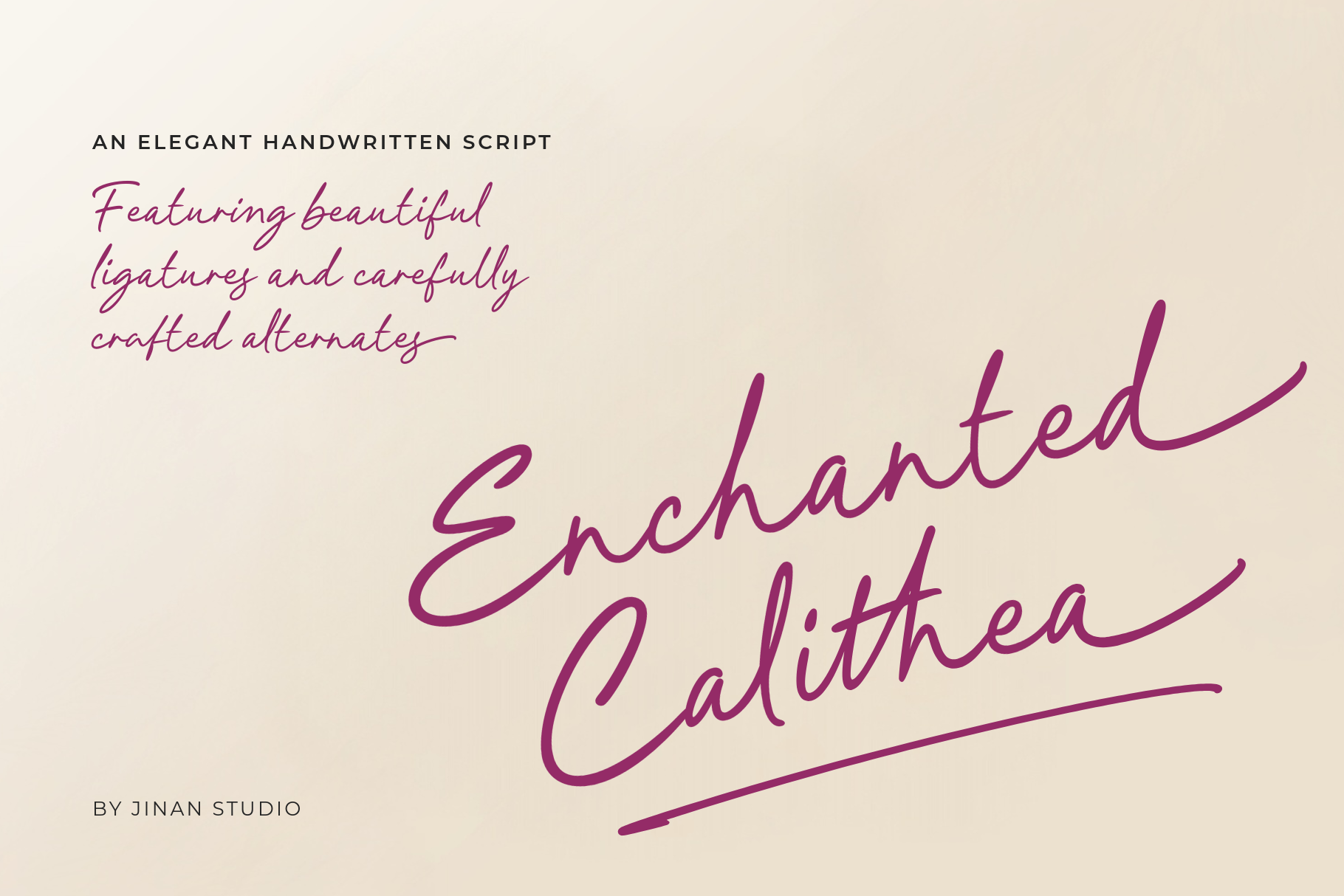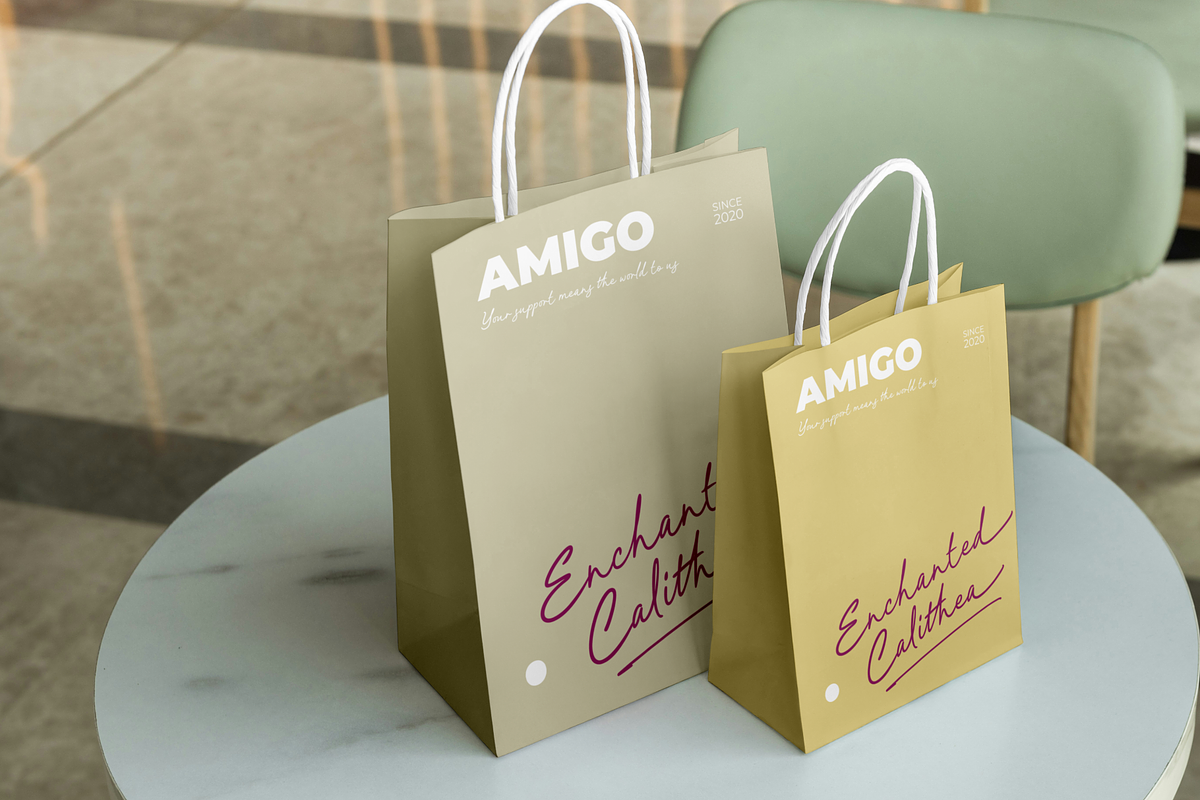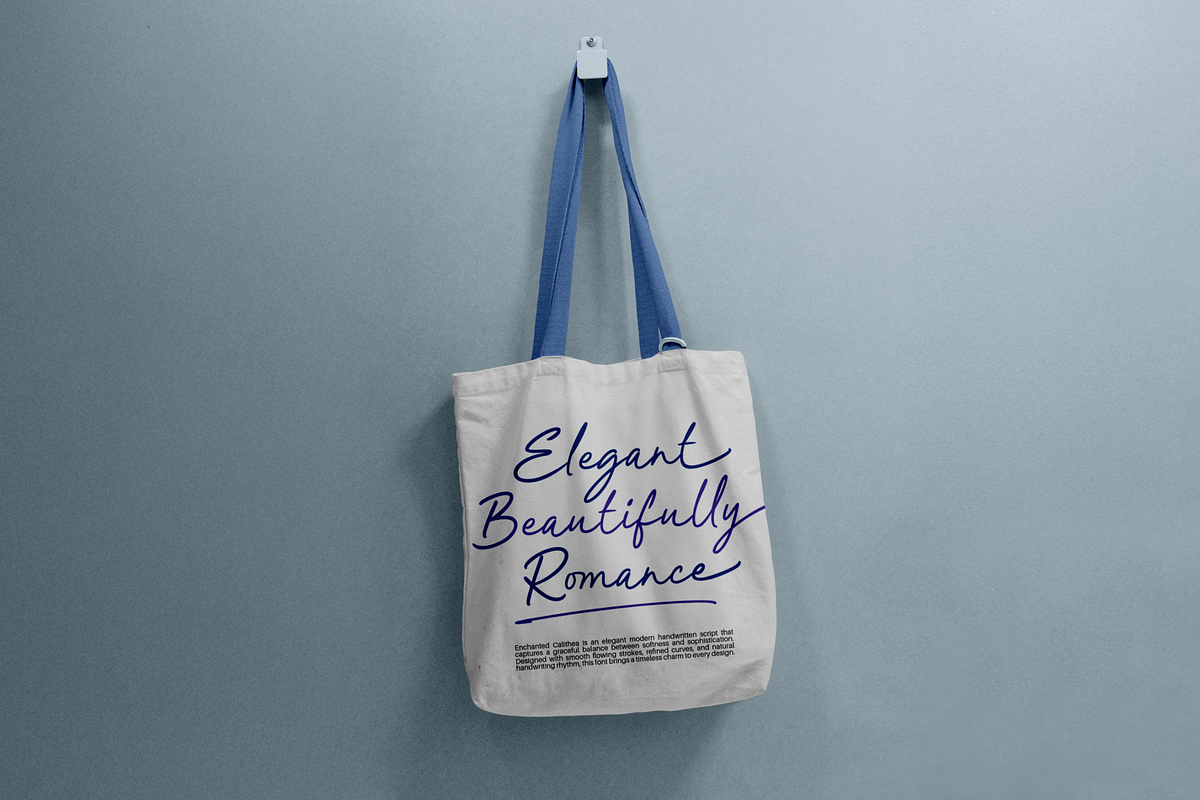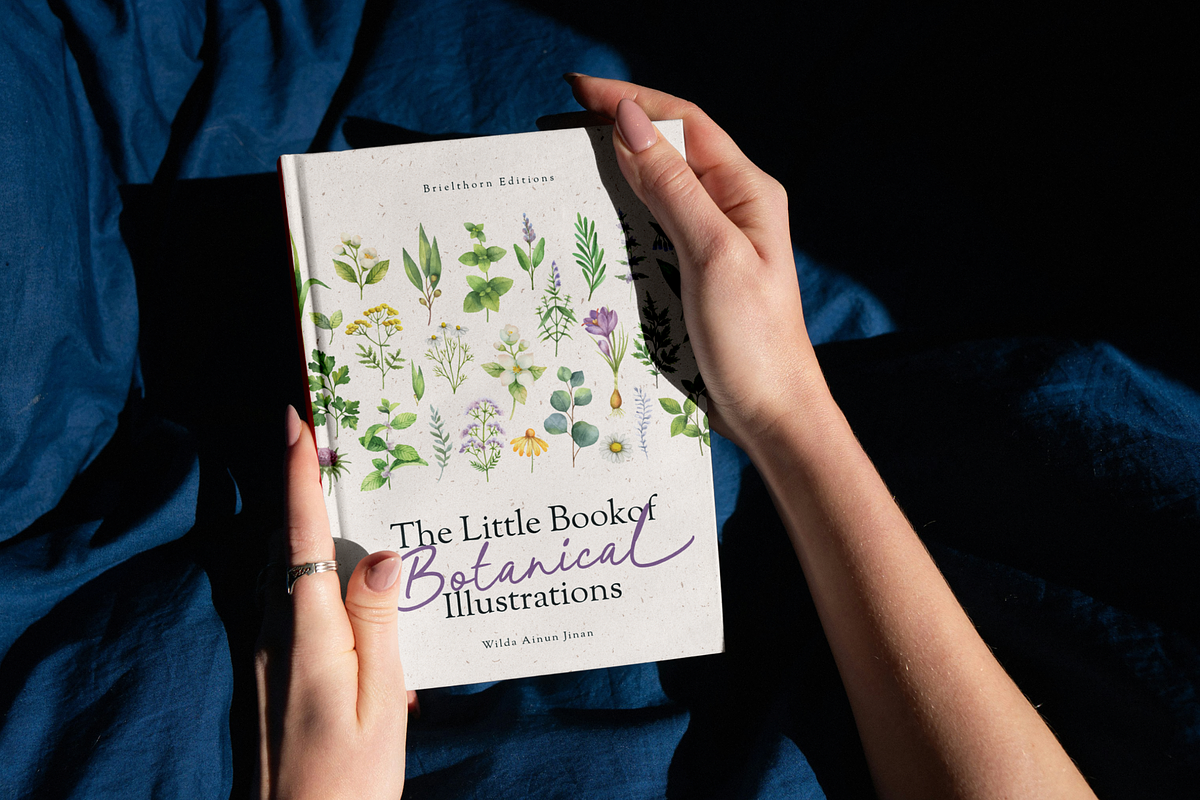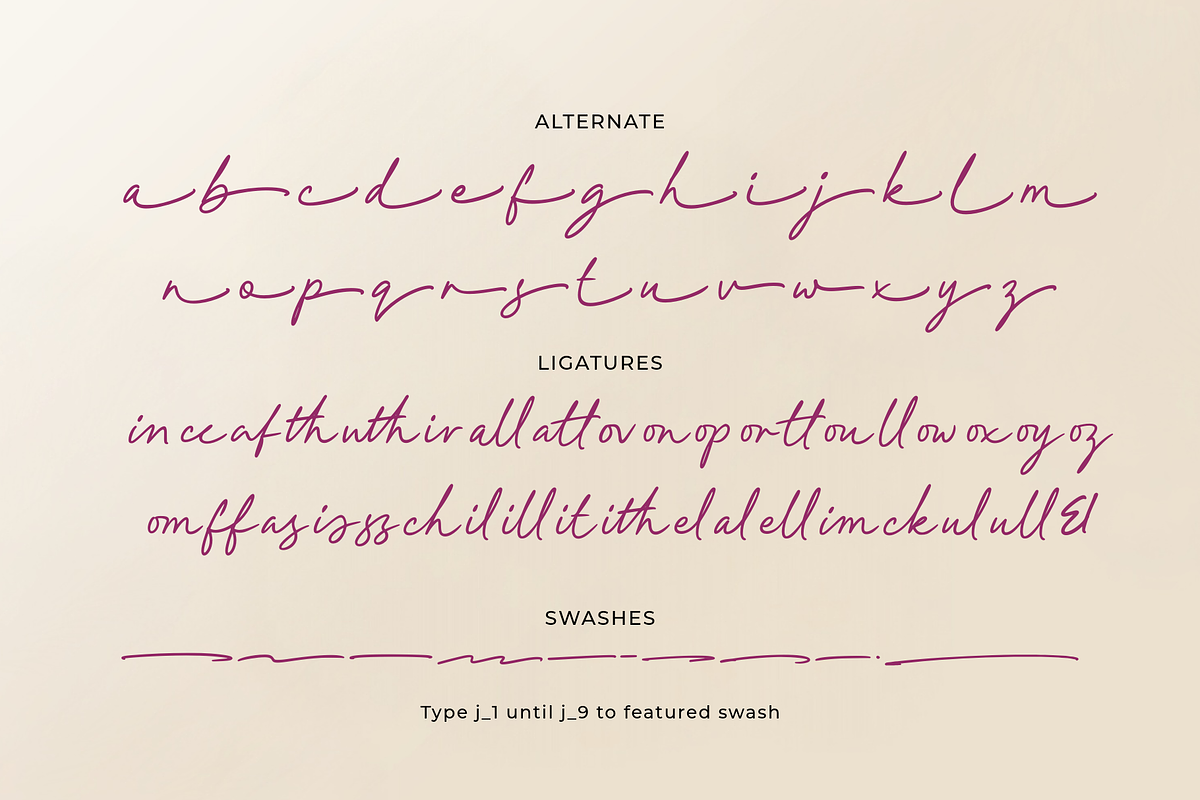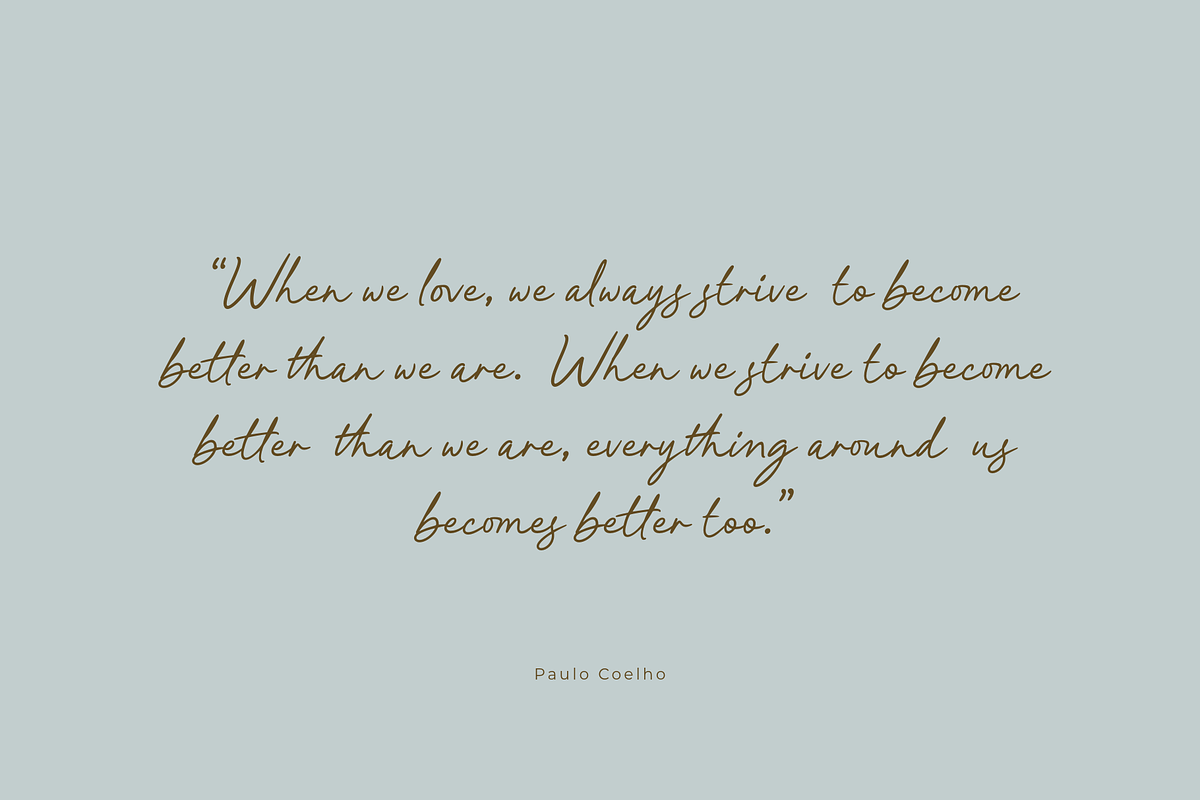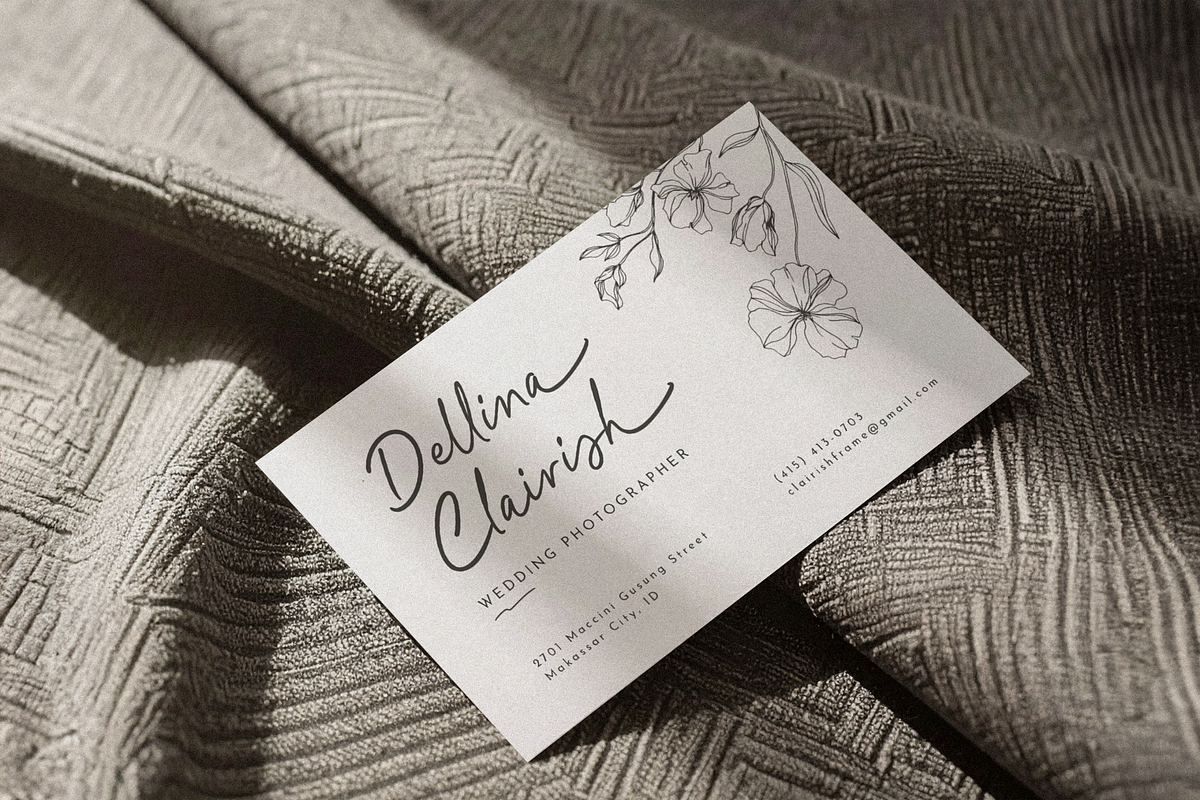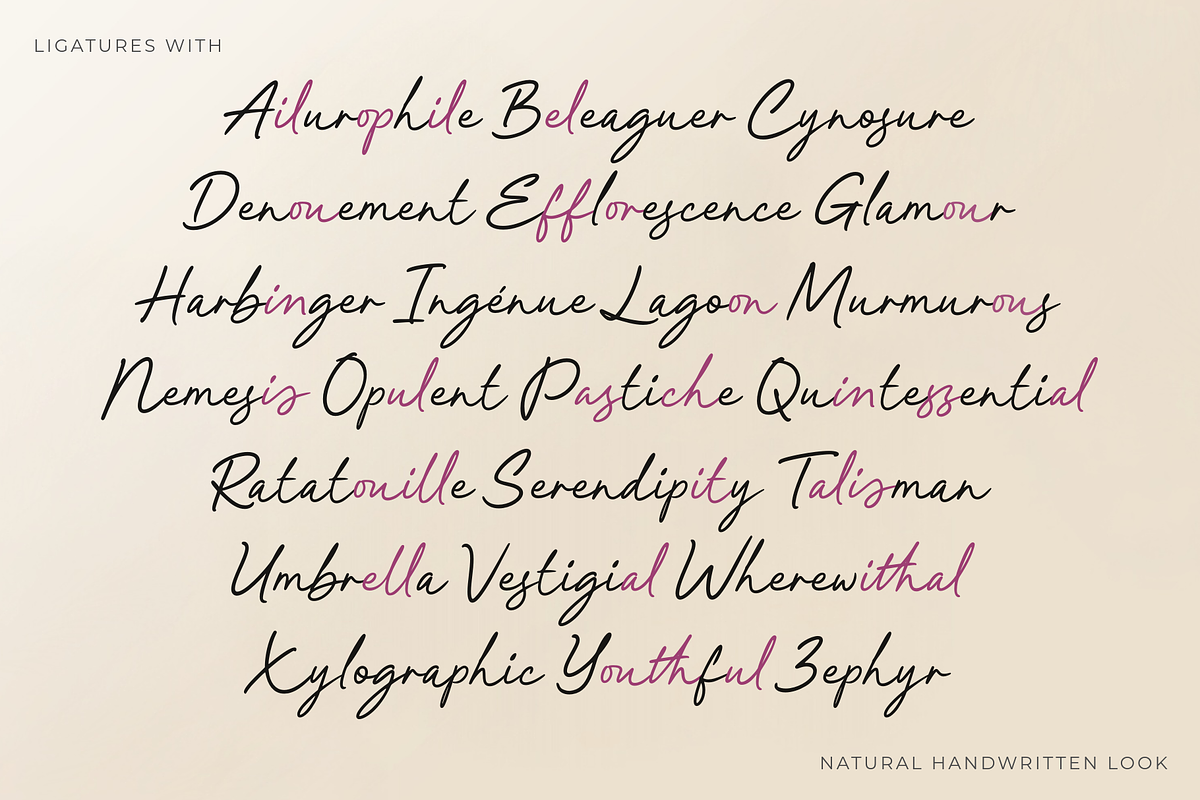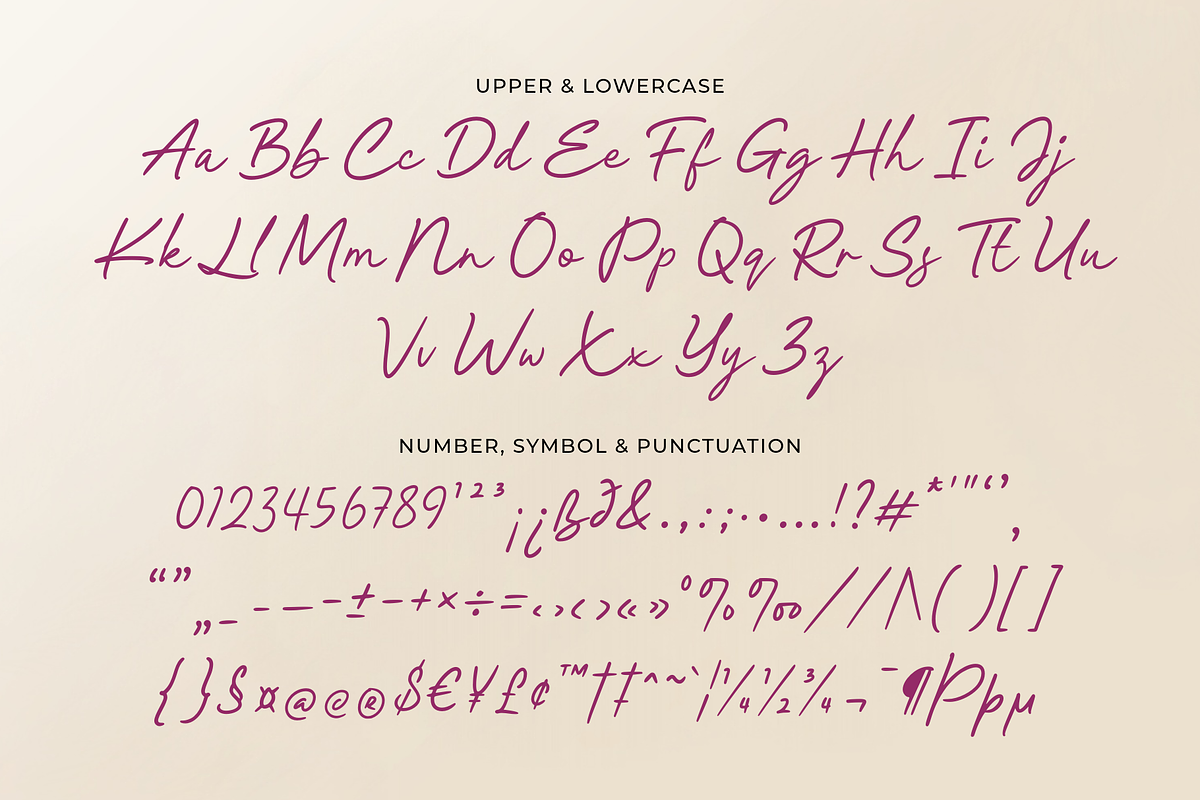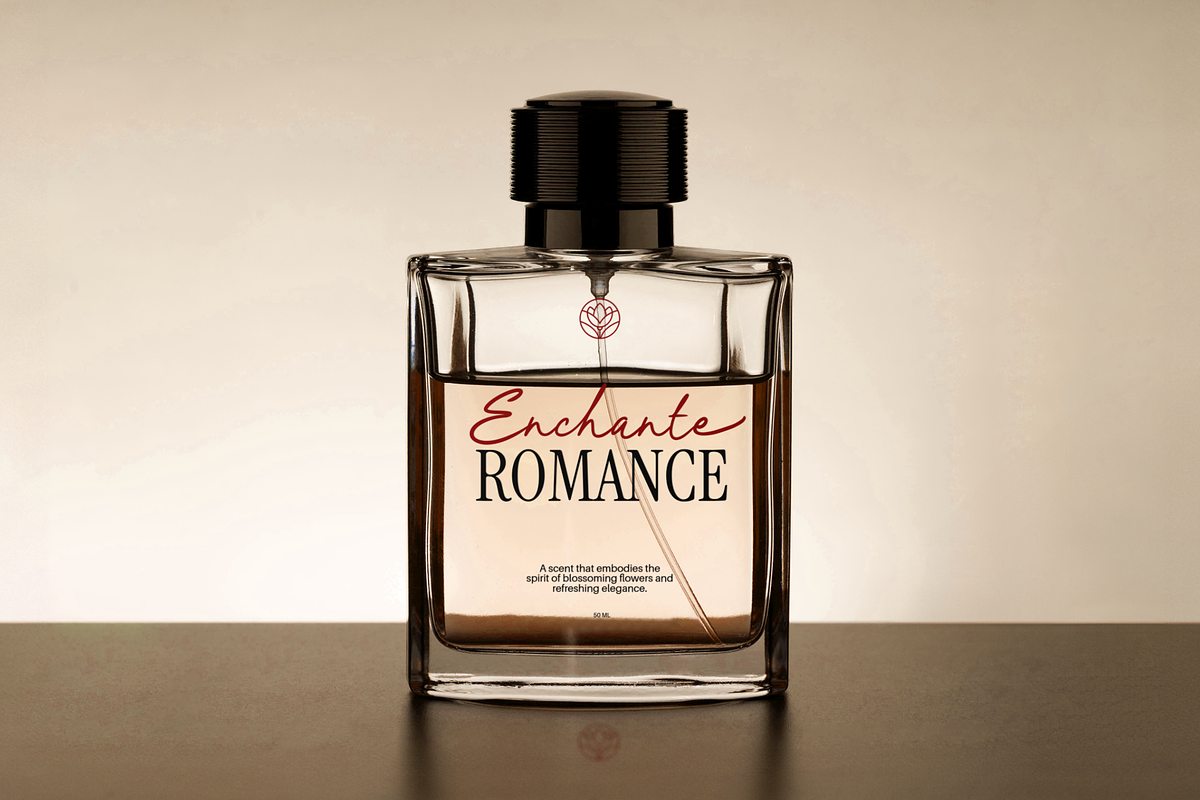
Enchanted Calithea - An Elegant Font
Enchanted Calithea is an elegant modern handwritten script that captures a graceful balance between softness and sophistication. Designed with smooth flowing strokes, refined curves, and natural handwriting rhythm, this font brings a timeless charm to every design.
Featuring beautiful ligatures and carefully crafted alternates, Enchanted Calithea allows your lettering to feel organic, expressive, and effortlessly stylish. Each character connects seamlessly, creating a luxurious handwritten look that feels personal yet polished.
Perfect for branding, wedding invitations, logos, social media, packaging, quotes, and editorial designs, Enchanted Calithea adds a touch of enchantment and class to both minimal and decorative projects.
Let your words flow beautifully and leave a lasting impression with Enchanted Calithea.
- A set of uppercase and lowercase glyphs.
- Number, symbol, and punctuation.
- Multilingual Support.
- Alternates, ligatures, and swashes.